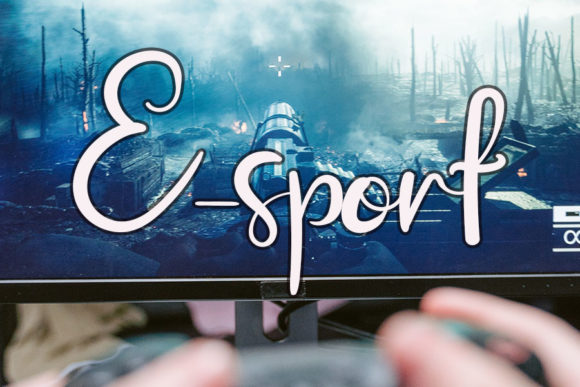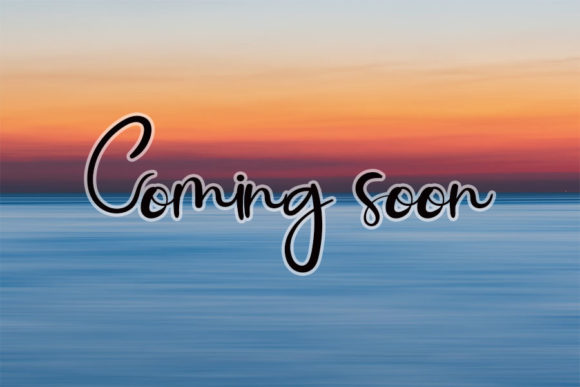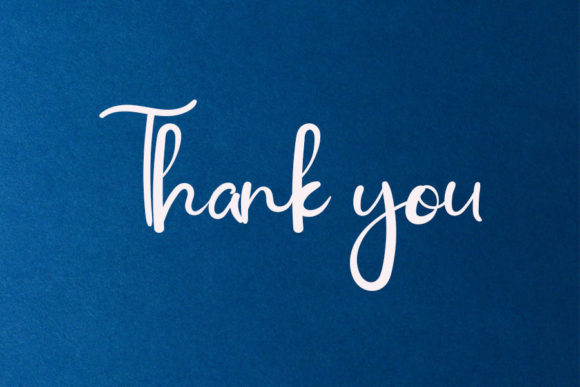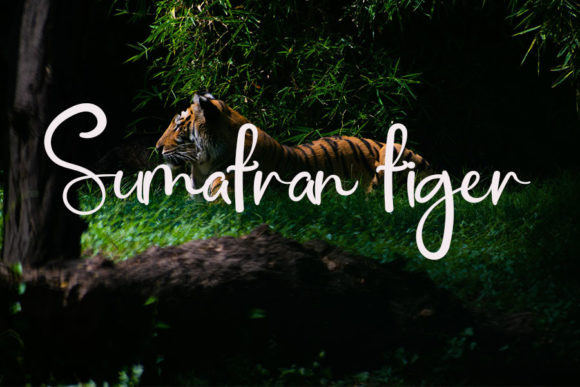
About Venom Font
“Venom” is a delicate and flowing script font that holds a special place in your fonts’ library. Regardless of the topic or project at hand, this font has the inherent ability to significantly enhance any creative endeavor.
The font’s delicate and flowing letterforms bring a sense of grace and elegance to your designs. Whether you’re working on branding, packaging, invitations, or digital graphics, “Venom” has the capacity to infuse your creations with a touch of sophistication and visual allure.
The font’s versatility empowers it to seamlessly adapt to various design contexts. Its flowing script can elevate both formal and artistic projects, adding a layer of refinement that resonates with viewers. By incorporating “Venom” into your designs, you introduce an element of artistic finesse that enriches the overall aesthetic.
In summary, “Venom” is more than just a font—it’s a creative tool that enhances your ideas with its delicate and flowing script. Its versatility and capacity to evoke elegance position it as a valuable asset for designers striving to create impressive and visually captivating designs that stand out and leave a lasting impact.